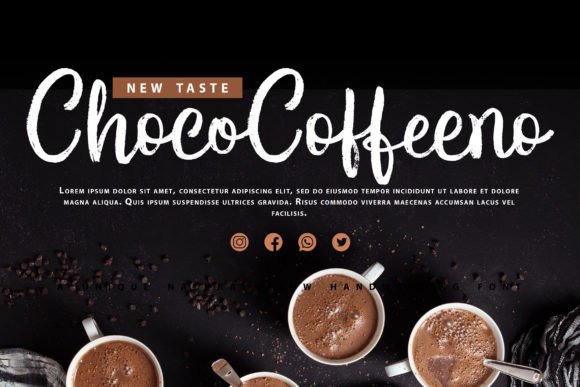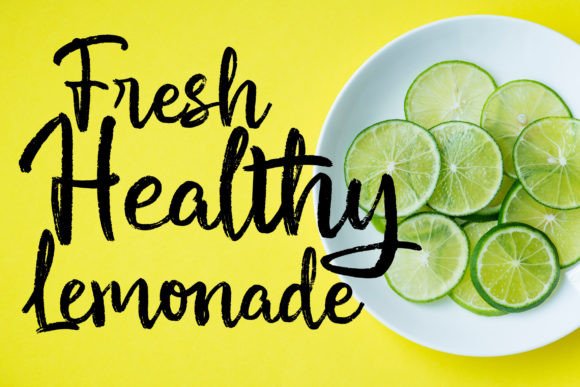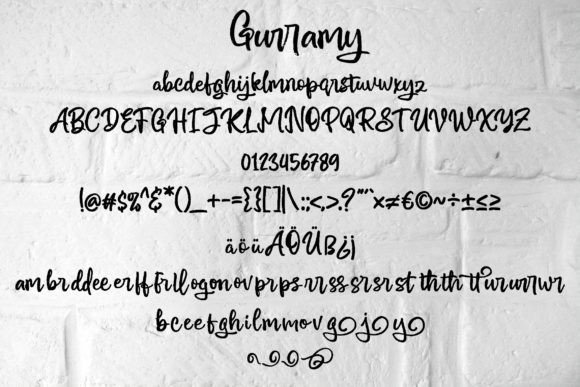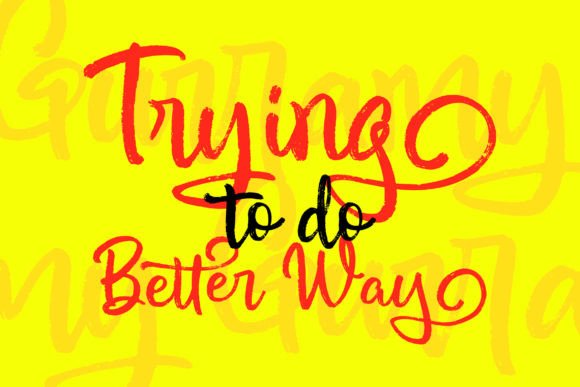
Gurramy Font: Elevate Your Designs with a Stylish and Modern Brush Font
In the world of typography, a good font can make all the difference in a design project. If you’re looking for a font that exudes energy and confidence, look no further than Gurramy Font. This stylish and modern brush font is perfect for designers and crafters who want to add a touch of edginess to their work. In this article, we’ll take a closer look at Gurramy Font, its features, and how it can elevate your designs.
What is Gurramy Font?
Gurramy Font is a bold and modern brush font that is designed to make a statement. With its unique texture and bold strokes, this font is perfect for branding, advertising, and social media graphics. Whether you’re looking to create a bold logo, a eye-catching advertisement, or a stunning social media graphic, Gurramy Font is the perfect choice.
Key Features of Gurramy Font
So, what makes Gurramy Font so special? Here are some of its key features:
- PUA Encoded: Gurramy Font is PUA encoded, which means that you can access all delightful glyphs and swashes effortlessly. This makes it easy to use and customize the font to suit your needs.
- Bold Strokes: The font features bold strokes that give it a unique and edgy look.
- Unique Texture: The texture of the font is unlike any other, adding a touch of sophistication to your designs.
- Modern and Stylish: Gurramy Font is a modern and stylish font that is perfect for designers who want to create bold and eye-catching designs.
Uses of Gurramy Font
Gurramy Font is a versatile font that can be used in a variety of design projects. Here are some of the ways you can use this font:
- Branding: Use Gurramy Font to create bold and eye-catching logos that make a statement.
- Advertising: The font is perfect for creating eye-catching advertisements that grab attention.
- Social Media Graphics: Use Gurramy Font to create stunning social media graphics that stand out from the crowd.
- Packaging: The font can also be used for packaging designs, adding a touch of edginess to your product packaging.
Tips for Using Gurramy Font
Here are some tips for using Gurramy Font in your design projects:
- Experiment with Colors: The font looks great in bold and bright colors, so don’t be afraid to experiment with different color combinations.
- Use it with Images: Gurramy Font looks great when used with images, so try combining it with high-quality images to create stunning designs.
- Play with Swashes: The font comes with a range of swashes that you can use to add a touch of elegance to your designs.
In conclusion, Gurramy Font is a stylish and modern brush font that is perfect for designers and crafters who want to add a touch of edginess to their work. With its bold strokes, unique texture, and PUA encoding, this font is perfect for branding, advertising, and social media graphics. Whether you’re a seasoned designer or just starting out, Gurramy Font is a great addition to your font library.